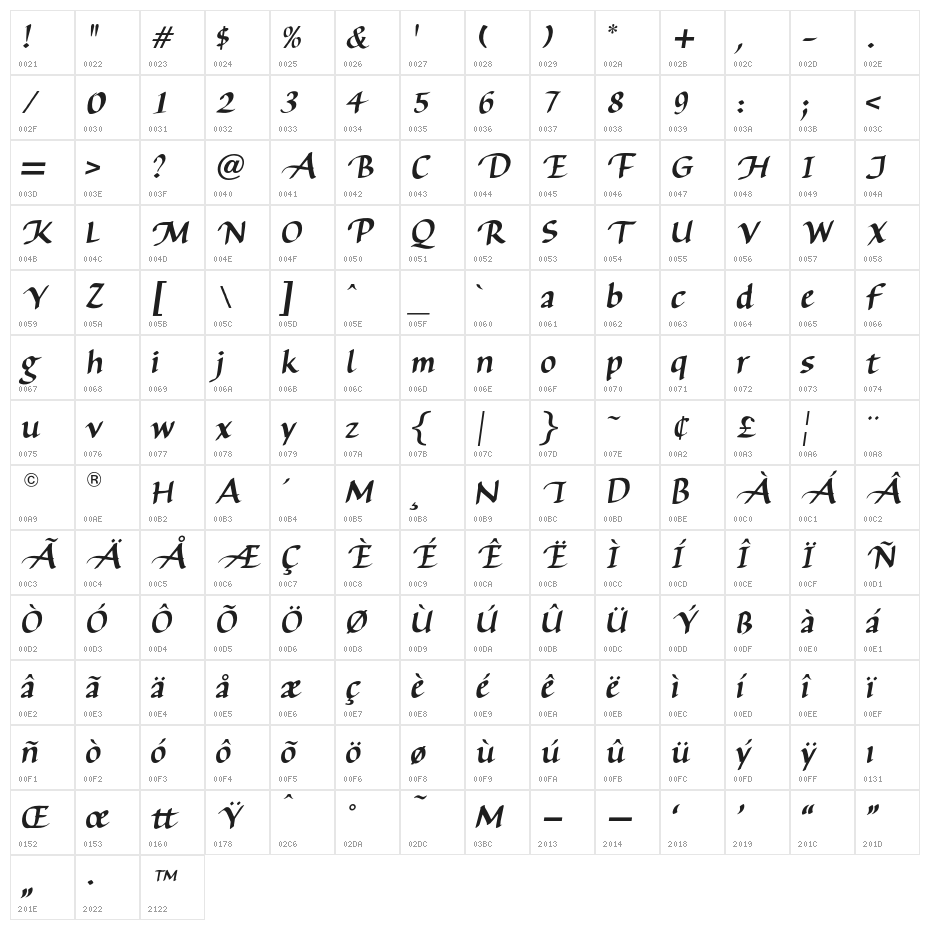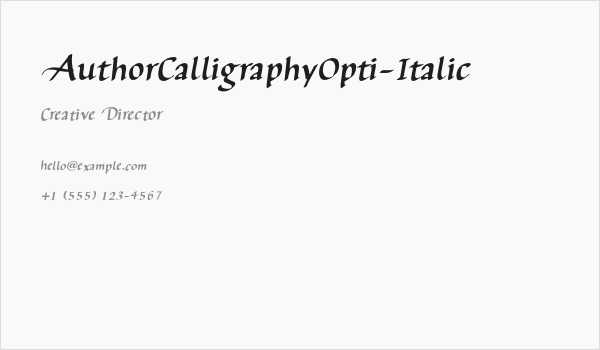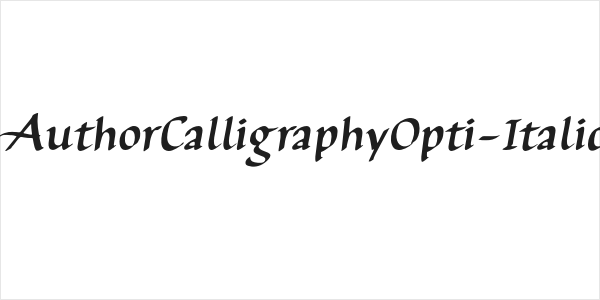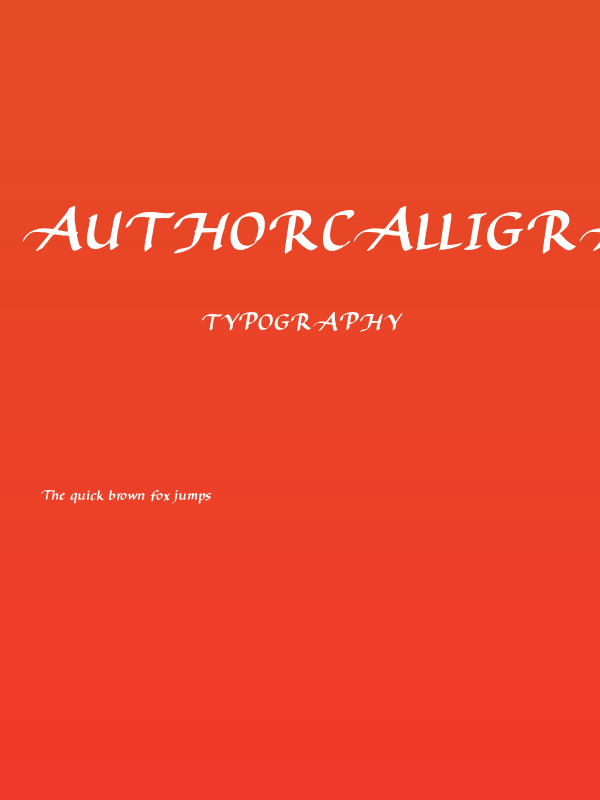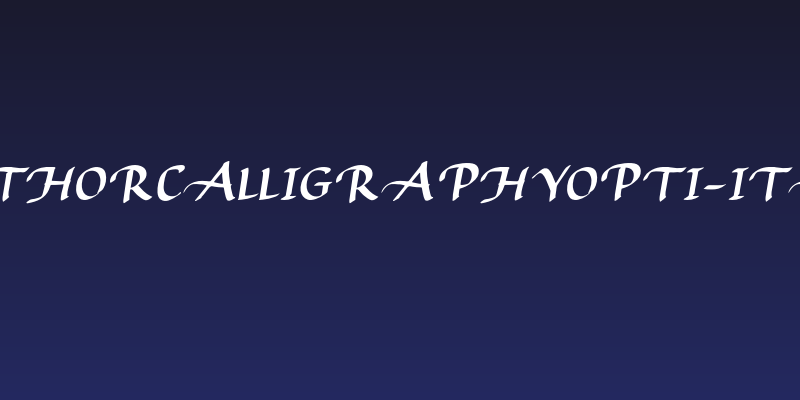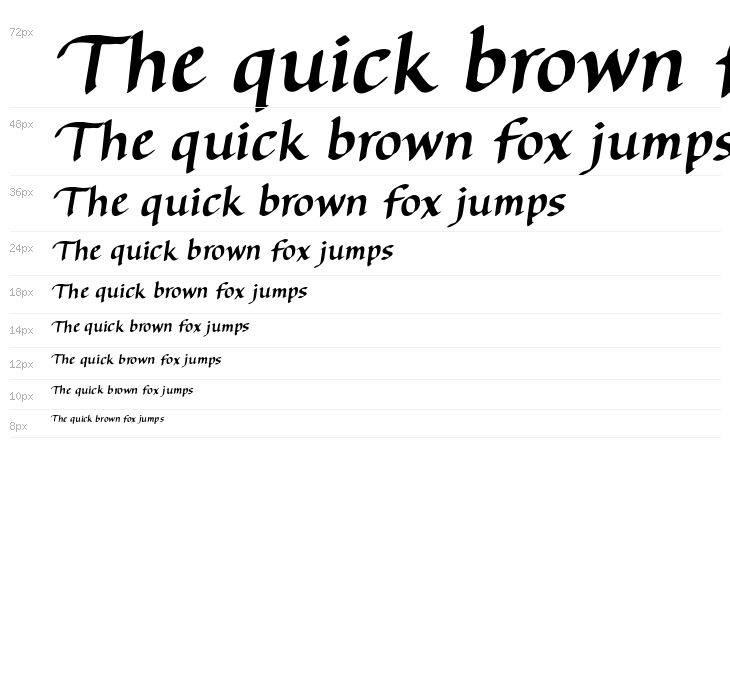
AuthorCalligraphyOpti-Italic Font
AuthorCalligraphyOpti-Italic Description
This font exudes a classic calligraphic style with a modern twist, characterized by its elegant, flowing lines and slight slant. The uppercase letters are bold and commanding, while the lowercase letters maintain a graceful, cursive appearance. The numerals are distinct and easy to read, complementing the overall aesthetic. Special characters are crafted with the same attention to detail, ensuring consistency throughout. The font's italic nature enhances its fluidity, making it suitable for projects that require a touch of sophistication and elegance.
| Proposed Projects | Ideal for wedding invitations, formal event programs, elegant branding, and high-end product packaging. |